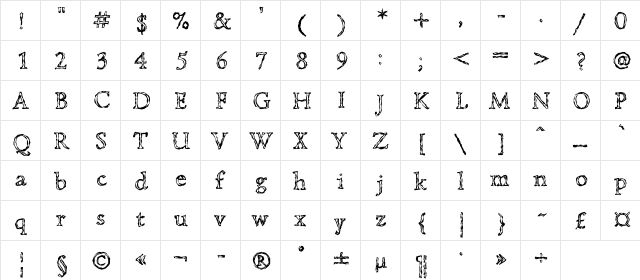
LazurskiEngravedC Regular Font Preview
LazurskiEngravedC Regular
Design Context for LazurskiEngravedC Typeface
LazurskiEngravedC brings ornamental detail and strong personality to headlines and identities, where visual impact matters more than quiet functionality.
Font Pairing: Pair with a clean neutral sans-serif for body copy to let LazurskiEngravedC's character lead without overwhelming the composition.
Pro Tip: Treat LazurskiEngravedC as the centrepiece of your typographic hierarchy. One strong heading set in a decorative face can carry an entire layout.